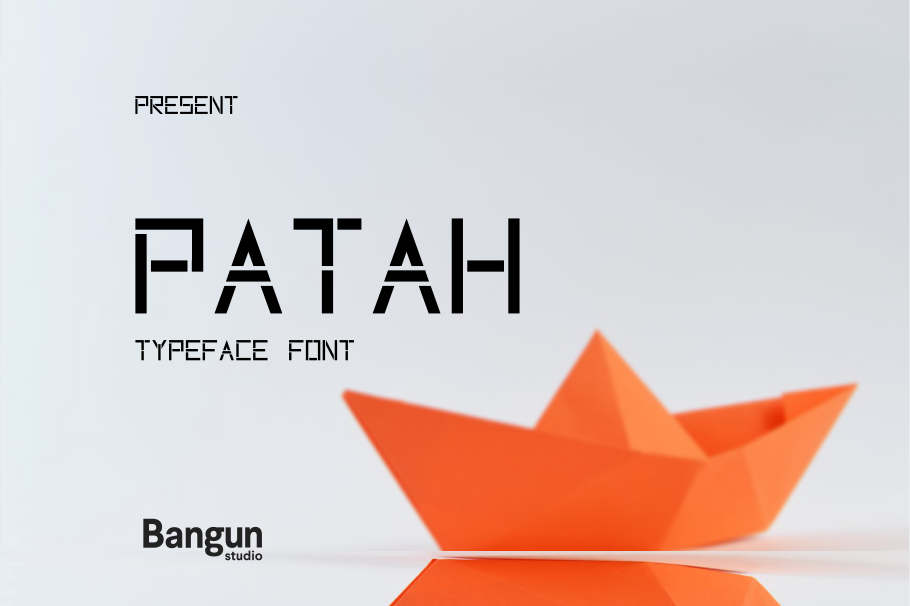
Patah Font
Patah
PATAH is a modern, all caps display font. Specifically developed for contemporary design styles and applications. These styles have been carefully designed shape by shape . This can creating a look reminiscent of offset printing or 3d anaglyphs. This feature allows you to set different colors, opacity and blending mode settings, providing a huge range of possible outcomes.